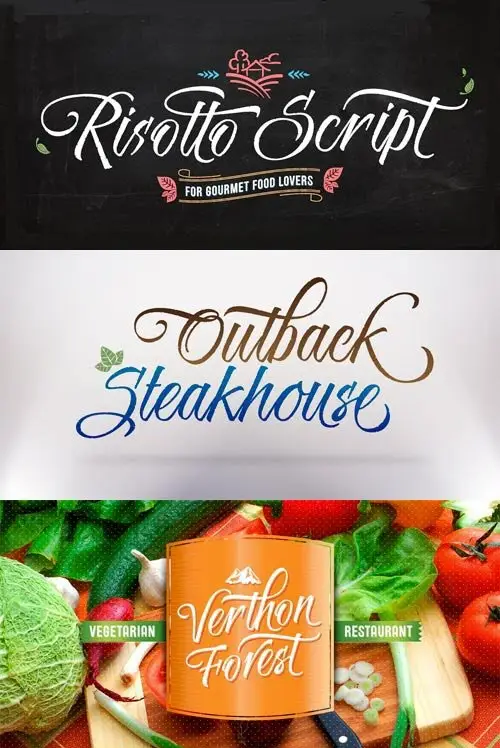
Risotto Script is a sexy font designed by Felipe Calderón, it represents the texture, sound, smell and flavor of food that come in those interesting packages with different concepts. This font makes you want to eat it because is designed with a unique texture like a lot of vegetables, it has flourish that pretends herbs and country roots. Calligraphy with folded pen and food packaging were two of the inspirations to develop this project that will work well wherever it is applied.